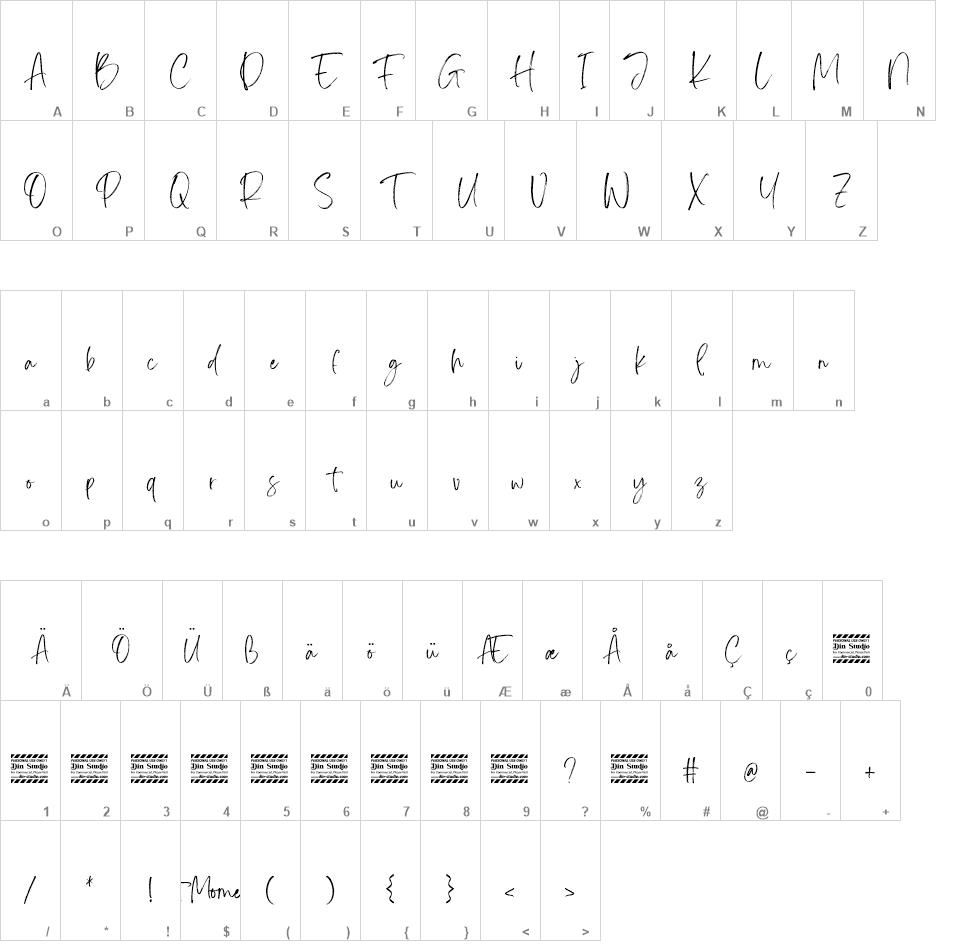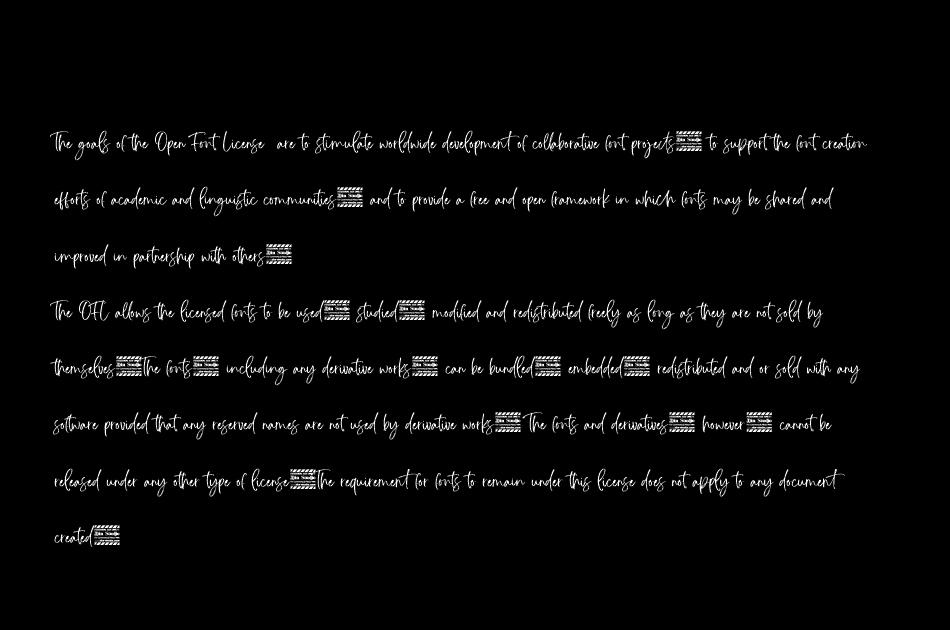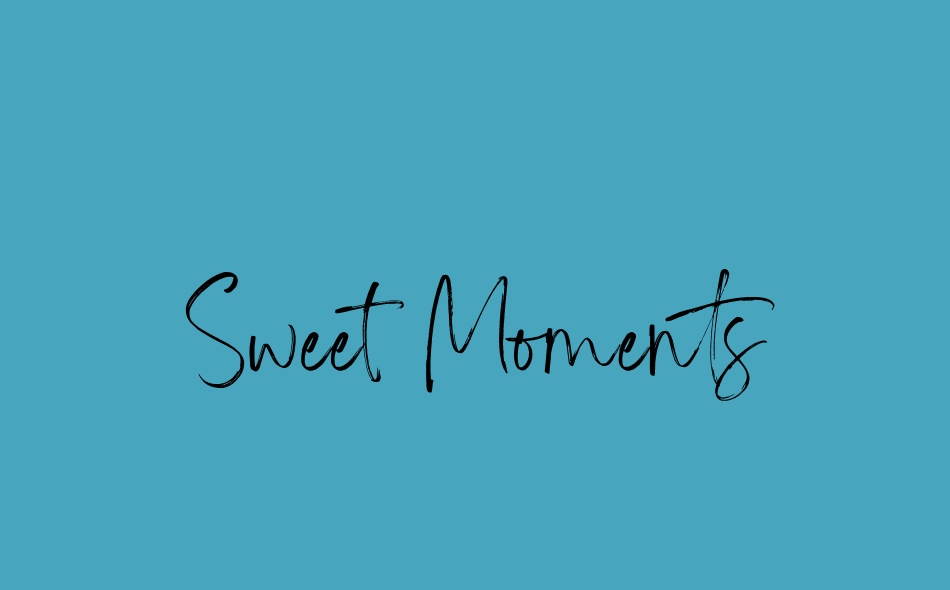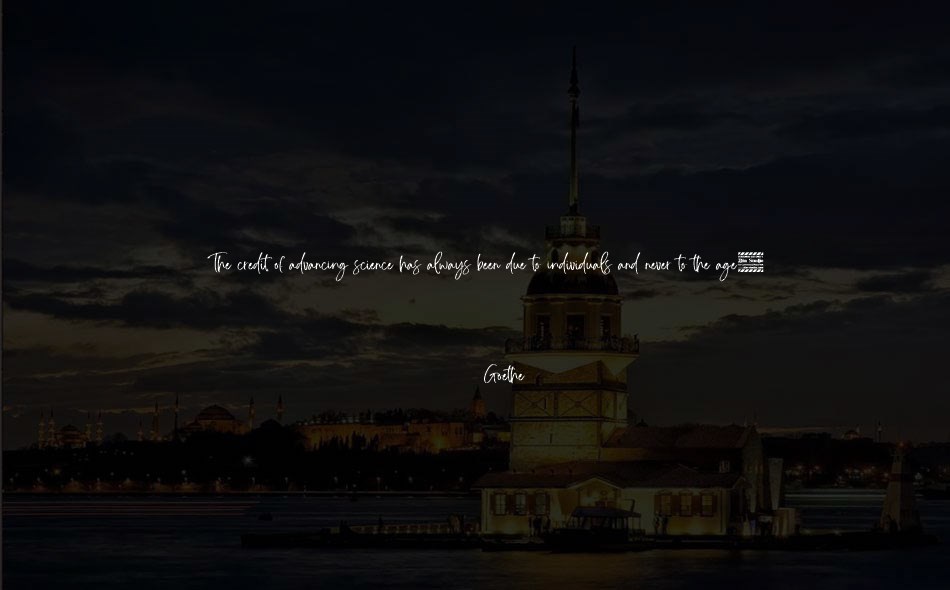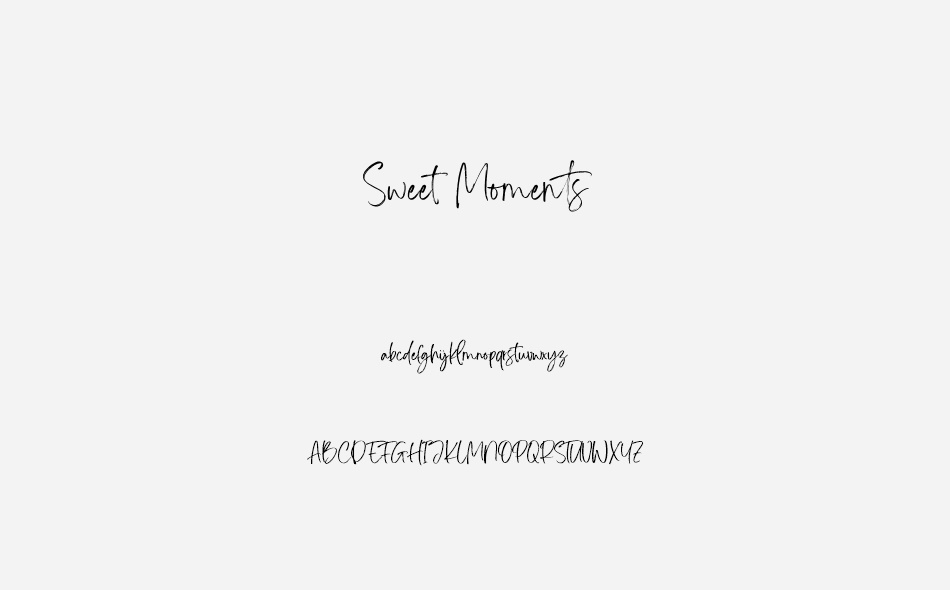
Sweet Moments font
Introducing Sweet Moments-A Handwritten Brush Font
This font is more than just another brush font. It encapsulates the essence of luxury and elegance. With elegance and passion edged into every curve and twist of this brush font youll be sure to boost your sales and make best impressions. This font become more special with many swash version option. Use it for headings, logos, business cards, printed quotes, invitations of all sorts, cards, packaging, and your website or social media branding.